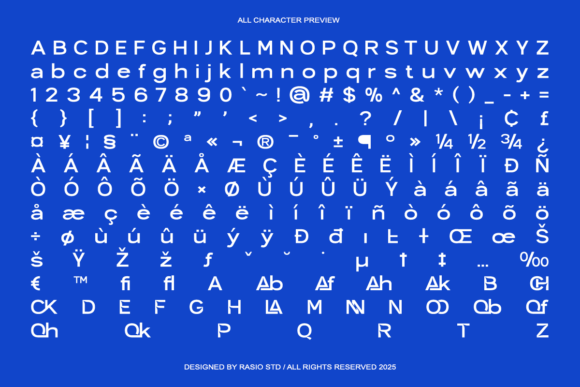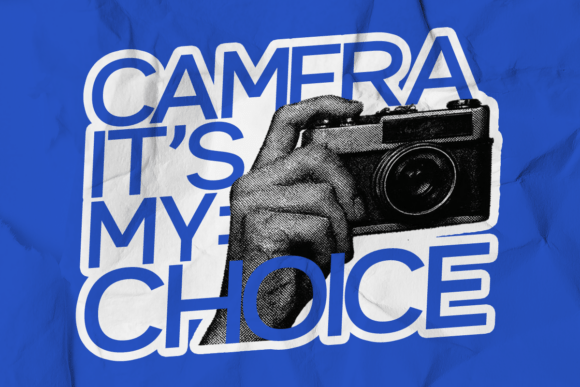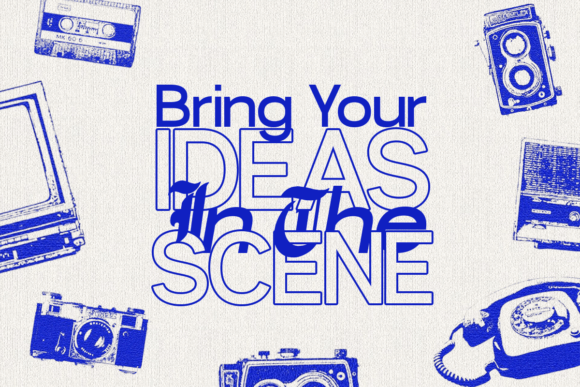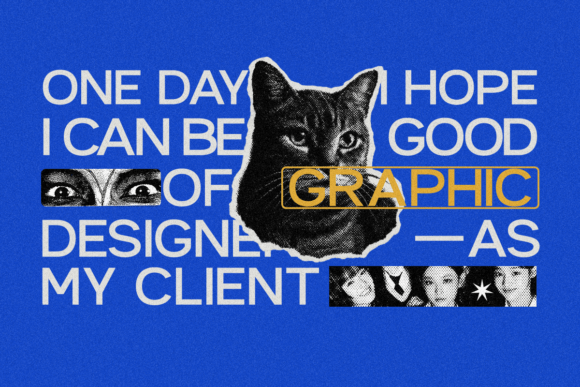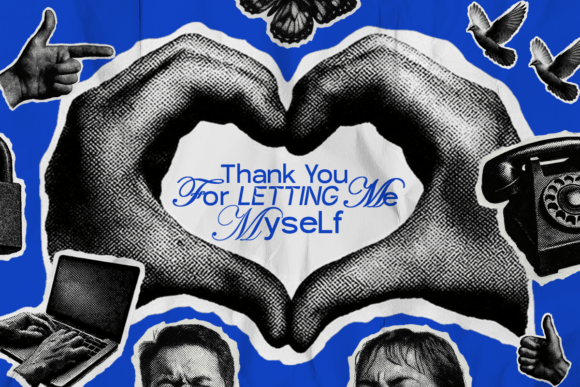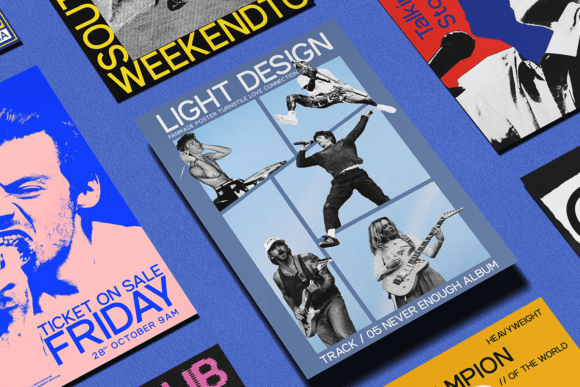
Introduction to Quarno Font
As a designer, have you ever found yourself stuck in a creative rut, searching for the perfect font to elevate your project? Perhaps you’ve scrolled through countless free download resources, only to end up with a font that lacks the desired level of sophistication. This is where the Quarno Font comes in – a clean and contemporary sans serif typeface designed to bring clarity and confidence to your design work.
With its geometric precision, rounded terminals, and balanced proportions, the Quarno Font is the perfect design resource for any creative project. Its high quality and transparent background make it an ideal choice for both digital and print media, allowing you to focus on what matters most – bringing your vision to life.
Key Features of Quarno Font
- High-quality design resource suitable for various creative projects, including graphic design, digital art, and publishing.
- Quarno Font features a transparent background, making it ideal for use on both light and dark backgrounds.
- Supports a wide range of languages, including Latin, Cyrillic, and Greek scripts, making it a versatile design resource.
- Quarno Font comes in 6 different weights, from Light to Black, allowing designers to choose the perfect style to suit their creative project.
Honest Review: Quarno Font
As a designer, I’m always on the lookout for high-quality design resources to elevate my creative projects. Recently, I stumbled upon the Quarno Font, and I must say it’s a game-changer.
- ✨ The Quarno Font boasts a sleek, modern design that’s perfect for any contemporary project.
- ✨ It’s incredibly versatile and can be used for a wide range of applications, from headings to body text.
- ✨ The transparent background feature allows for seamless integration with any design element.
- ⚠️ The font may not be suitable for projects that require a more traditional or vintage look.
- ⚠️ Some users may find the font’s modern style too bold or overpowering.
Overall, I’m thoroughly impressed with the Quarno Font. Its high quality, modern design, and free download make it an excellent addition to any design library. While it may not be suitable for every project, it’s definitely a great resource to have in your toolkit.
With Quarno Font, you can achieve a high-quality look and feel for your creative project, making it perfect for professional use.
With Quarno Font, you can create professional-looking designs and documents for your creative project, all from the comfort of your own computer.
Quarno Font is perfect for use in a variety of creative projects, including brochures, business cards, and presentations.
It’s also a great resource for designers who need a high-quality font for their designs.